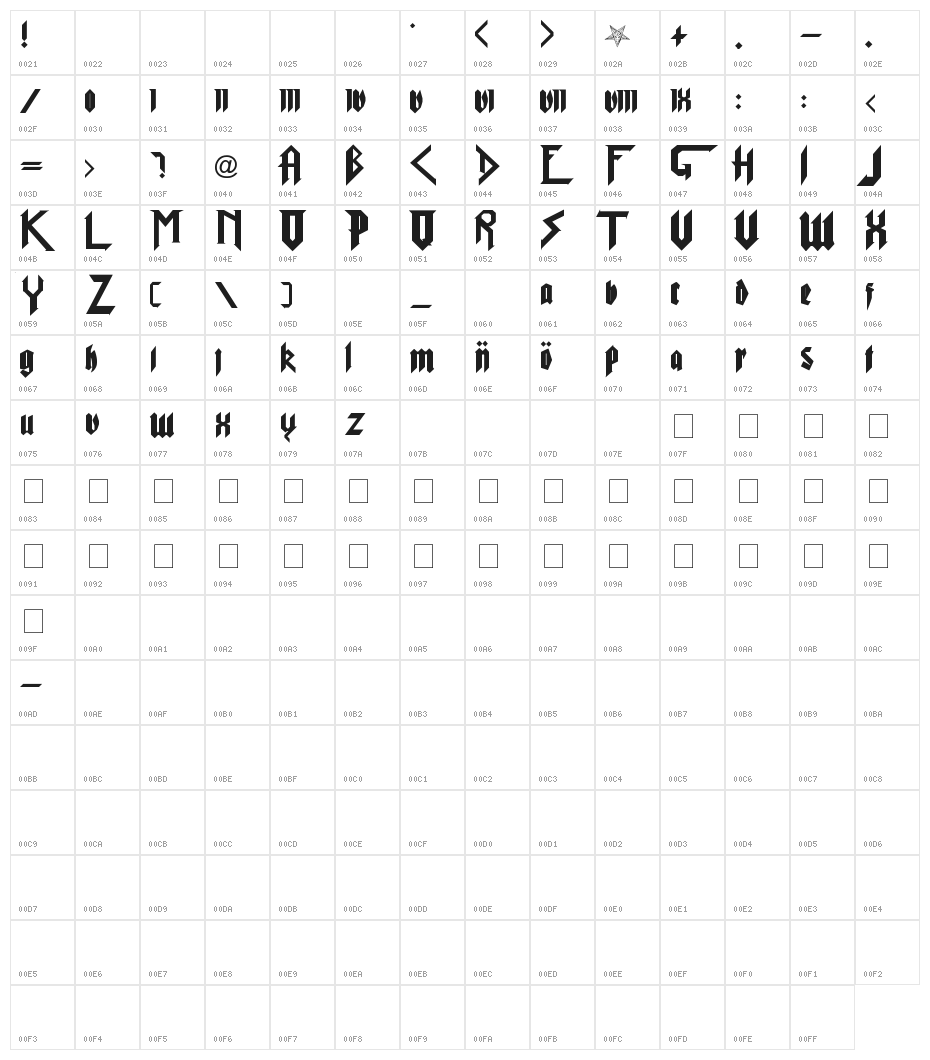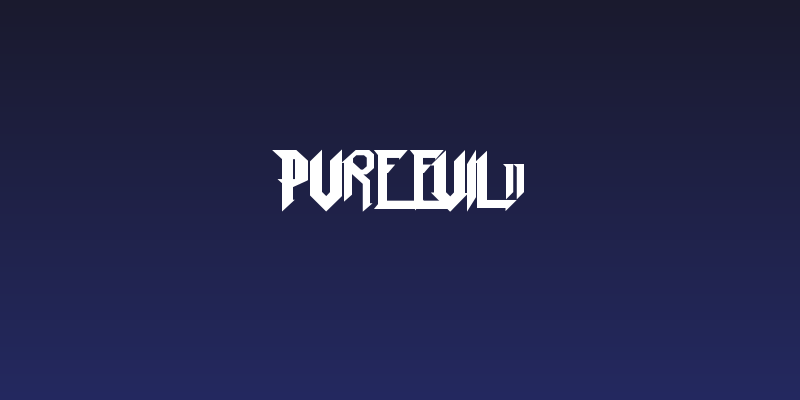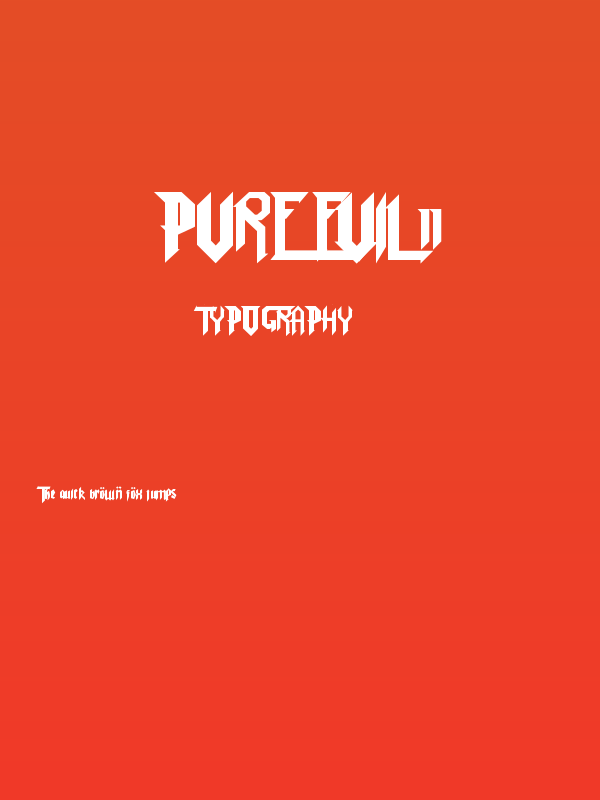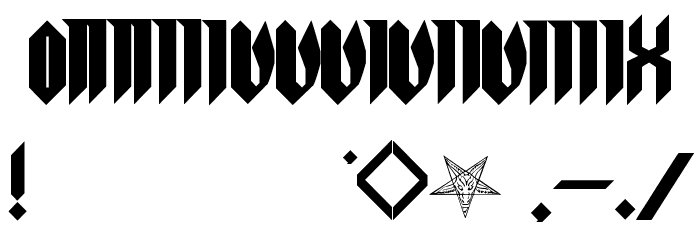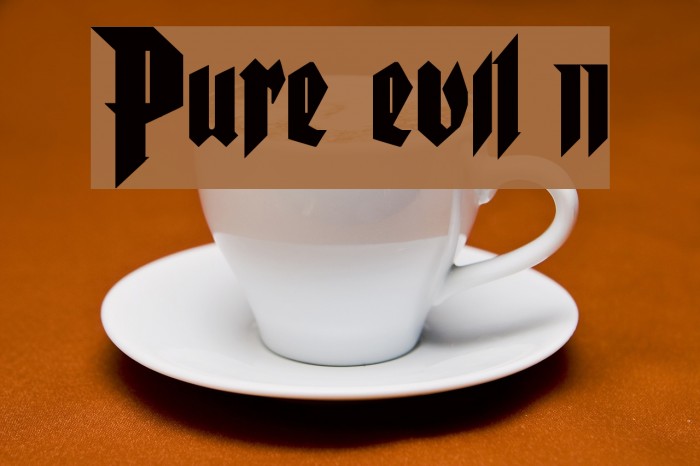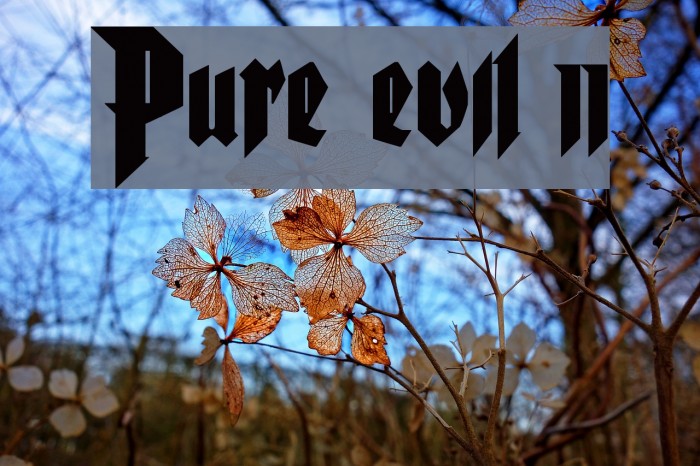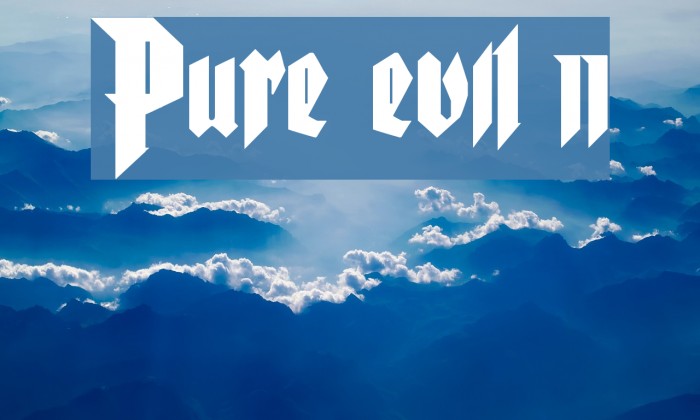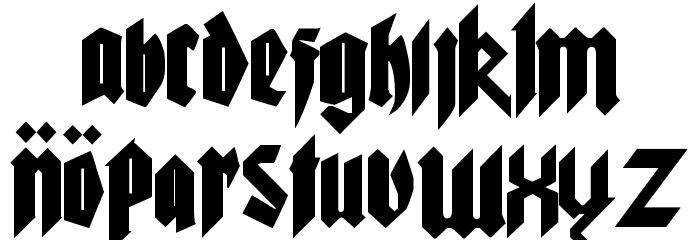
Pure evil 2 Font
Pure evil 2 Description
This font features a bold, angular design with sharp edges and a gothic influence. The uppercase letters are particularly striking, with exaggerated points and a heavy weight that conveys a sense of power and intensity. The lowercase letters maintain the same angular style, creating a cohesive look throughout. The numbers and special characters are equally bold, with unique shapes that add to the font's distinct personality. This font's high contrast and dramatic style make it ideal for projects that require a strong visual impact.
| Overall Style | Gothic, Dramatic |
| Proposed Projects | Ideal for album covers, posters, and branding that requires a bold, dramatic impact. |